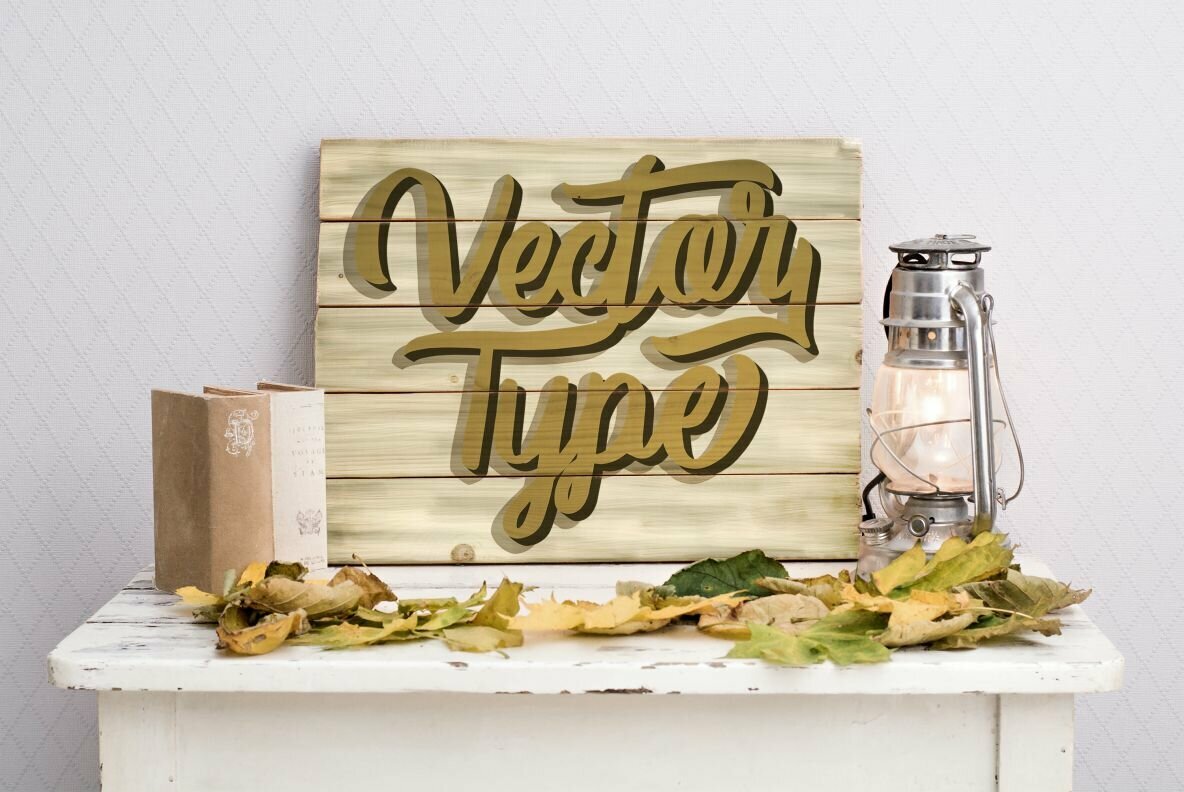
Vector Type Font
Vector Type
Embrace creativity with Vector Type, a font tailored for the discerning designer. Perfect for a spectrum of projects, from branding, t-shirts, and social media posts to wedding designs and advertisements, this typeface delivers a handwritten flair with a modern twist. It's the ideal choice for product packaging, labels, photography, or any creative endeavor requiring a personal touch.Vector Type: Versatile Handwriting Font for Diverse Design Needs